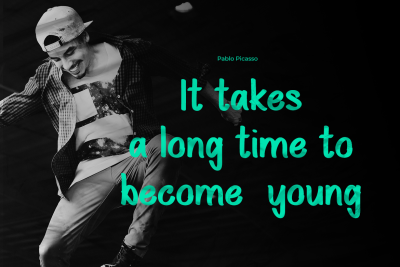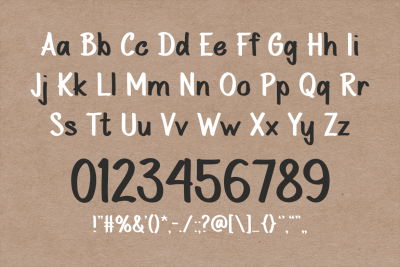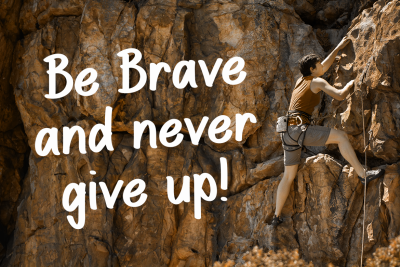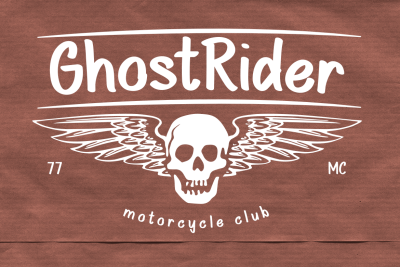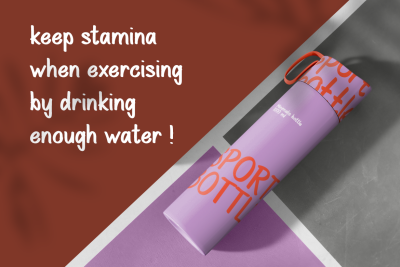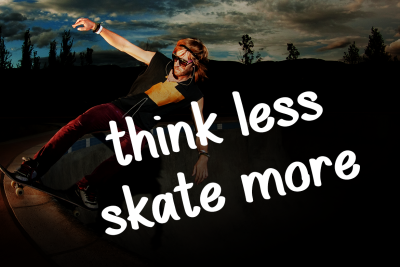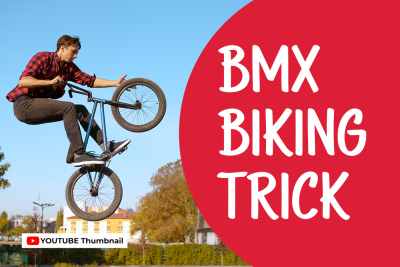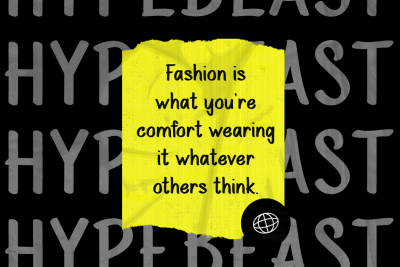
CAFE RACER
Handwriting Font Cafe Racer introduces a bold and dynamic style that elevates any design project. Inspired by the rebellious spirit of motorcycle culture, this font blends vintage and modern aesthetics seamlessly. With its fluid curves and sharp edges, it brings an exciting, fast-paced vibe to your designs.
The letterforms convey speed and thrill, making it an ideal choice for projects that need to evoke movement and energy. Whether you’re designing logos, posters, or social media content, Handwriting Font Cafe Racer helps deliver your message with power and excitement.
What sets this font apart is its perfect balance of casual, hand-lettered charm and sleek, professional lines. It’s a great fit for motorcycle brands, lifestyle companies, and even action sports businesses. Whether showcasing gear, products, or services, this font grabs attention and adds a distinctive flair to your designs.
Handwriting Font Cafe Racer Who is it Suitable For?
Handwriting Font Cafe Racer works perfectly for businesses in the automotive, lifestyle, and entertainment industries. Motorcycle brands, such as custom bike shops and motorcycle apparel companies, will find it especially fitting. Its bold and expressive design captures the adrenaline and excitement of the biking world.
Adventure and extreme sports brands will also benefit from this font. It works brilliantly for promoting outdoor gear, travel experiences, or any project that captures the thrill of adventure. This font is embodies authenticity and energy, making it an ideal choice for businesses that want to make a statement.
Content creators in the automotive, travel, or adventure niches will find this font a fantastic option. Whether creating YouTube thumbnails, social media posts, or website headers, this font is offers a personal touch that resonates with your audience. It’s perfect for anyone looking to stand out with a bold, recognizable style.
Event organizers promoting concerts, festivals, or sports events can also benefit from this font. Its fast-paced and exciting vibe injects energy into promotional materials, adding a sense of movement and anticipation. Handwriting Font Cafe Racer enhances the excitement surrounding any event, ensuring your designs capture attention and spark interest.
In conclusion, this font is a versatile font that serves a wide range of industries. From automotive to adventure sports, it helps your brand make a lasting impression with its energetic and unique design. Whether you’re working on branding, content creation, or event promotion, this font guarantees your message stands out.